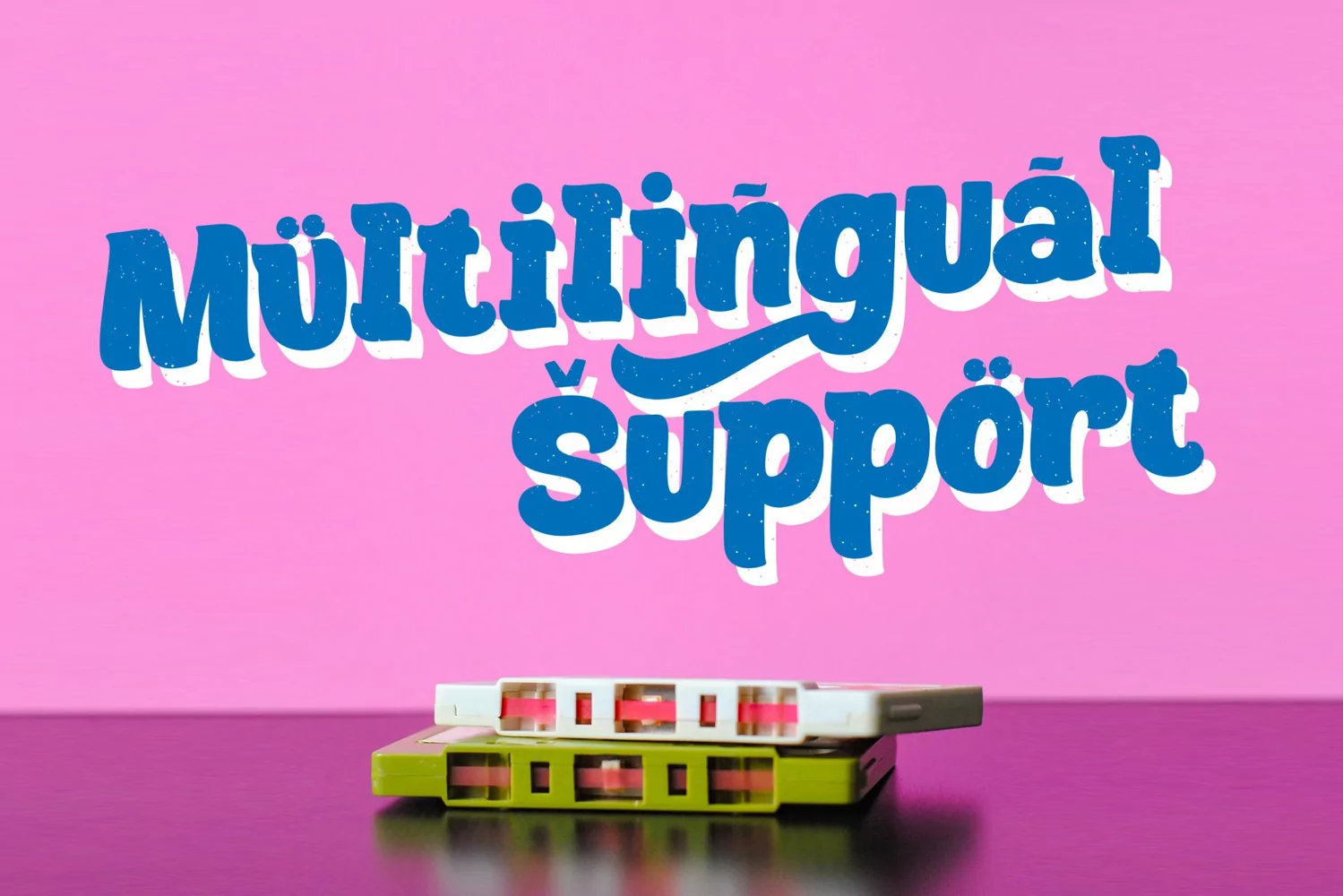
Mecklay Font
This pair was inspired by the retro poster design that i saw on some coffee shop, It was crafted by hand specially to add natural handmade feeling in its brand identity than i make it clean with pentool.
Mecklay font has 196 character set included Mecklay Font is very good looking in logo, labels, product packaging, invitations, advertising and others.